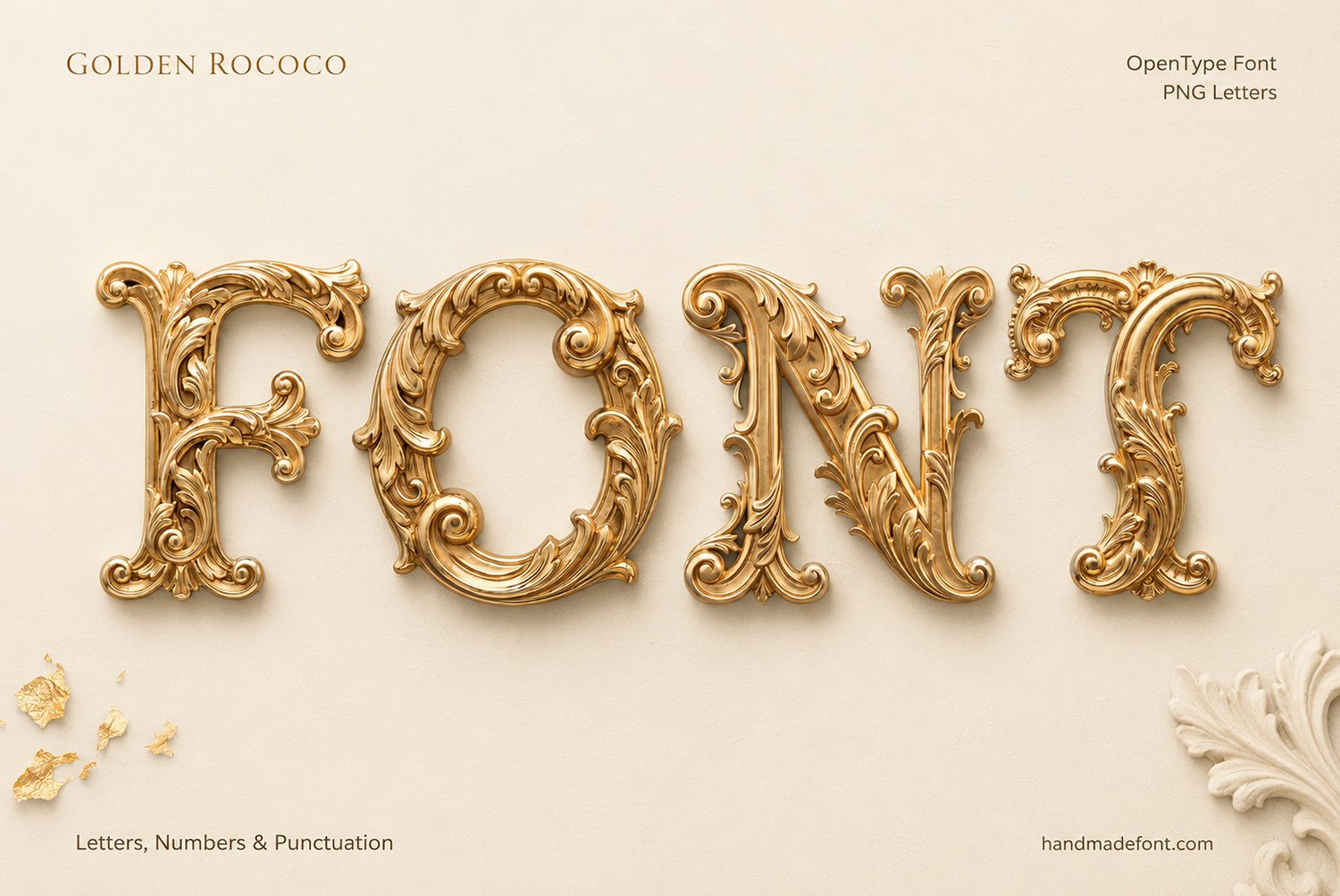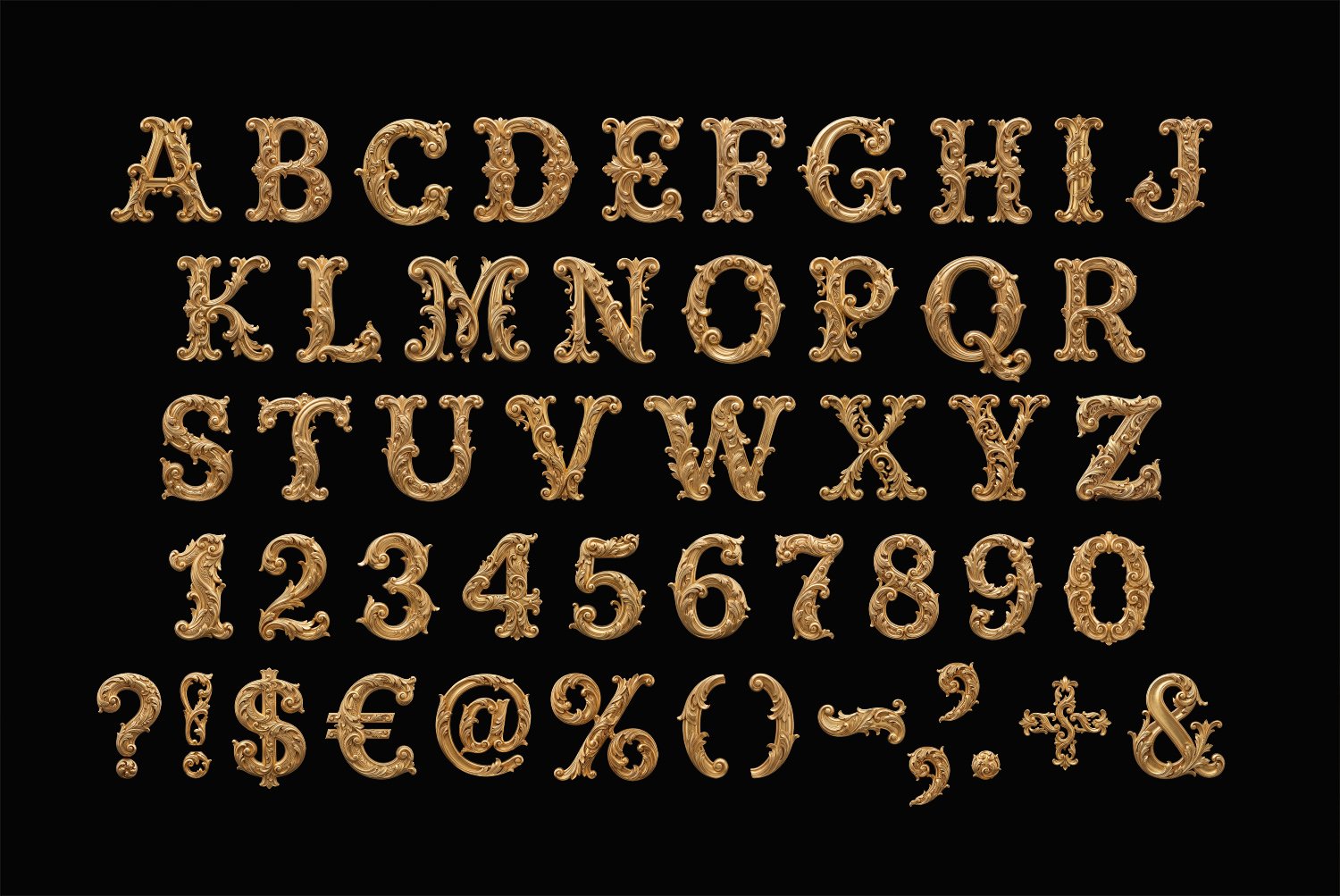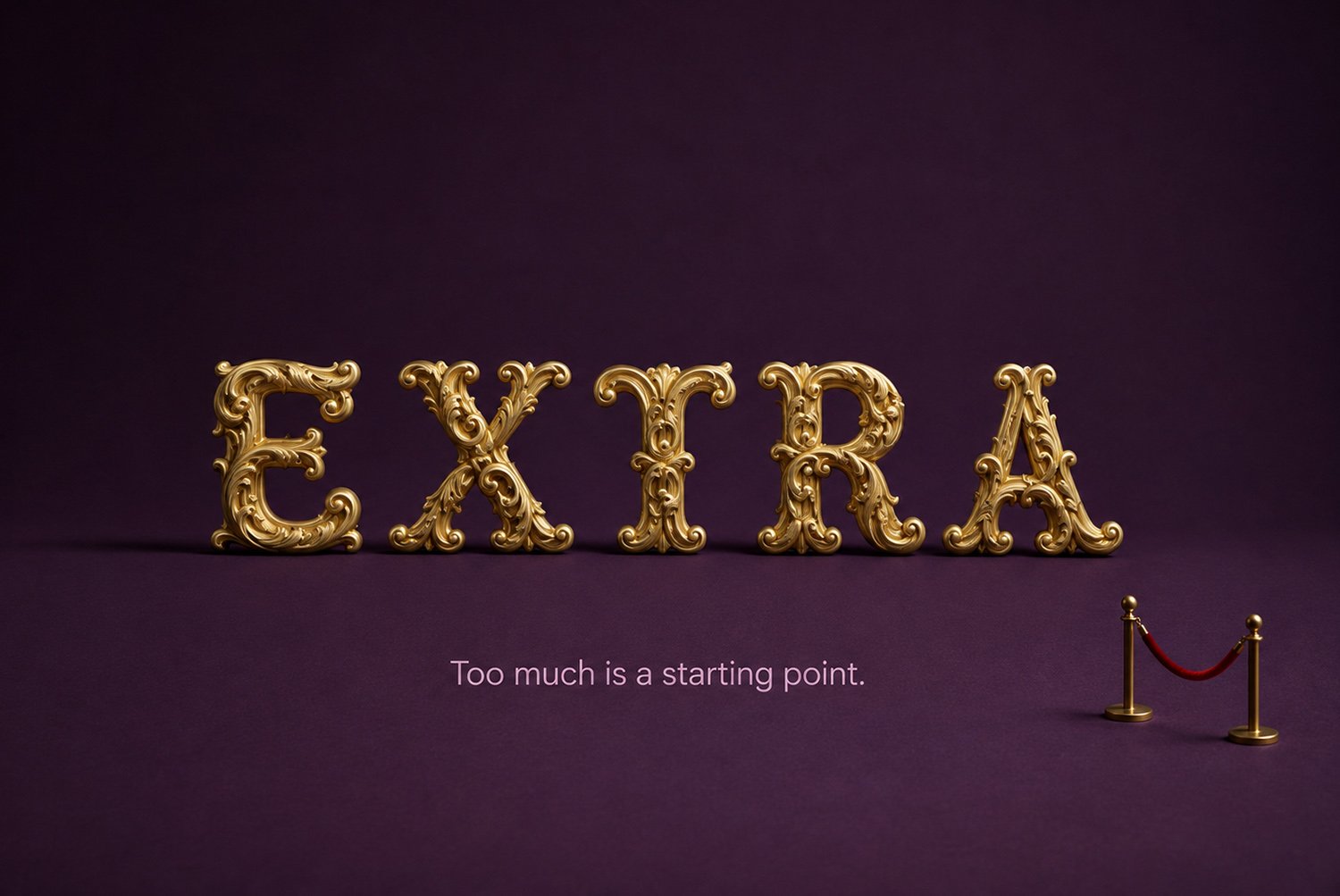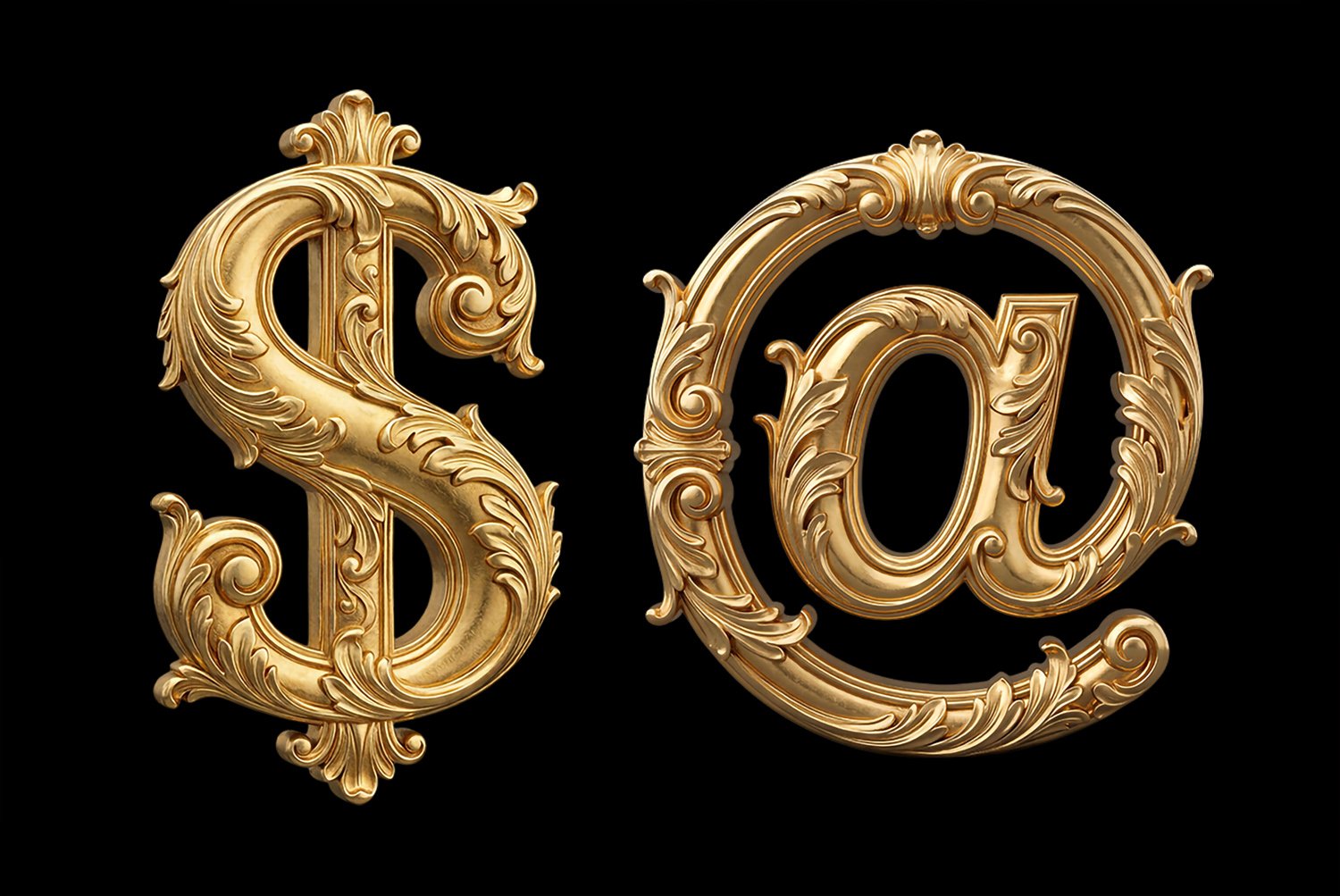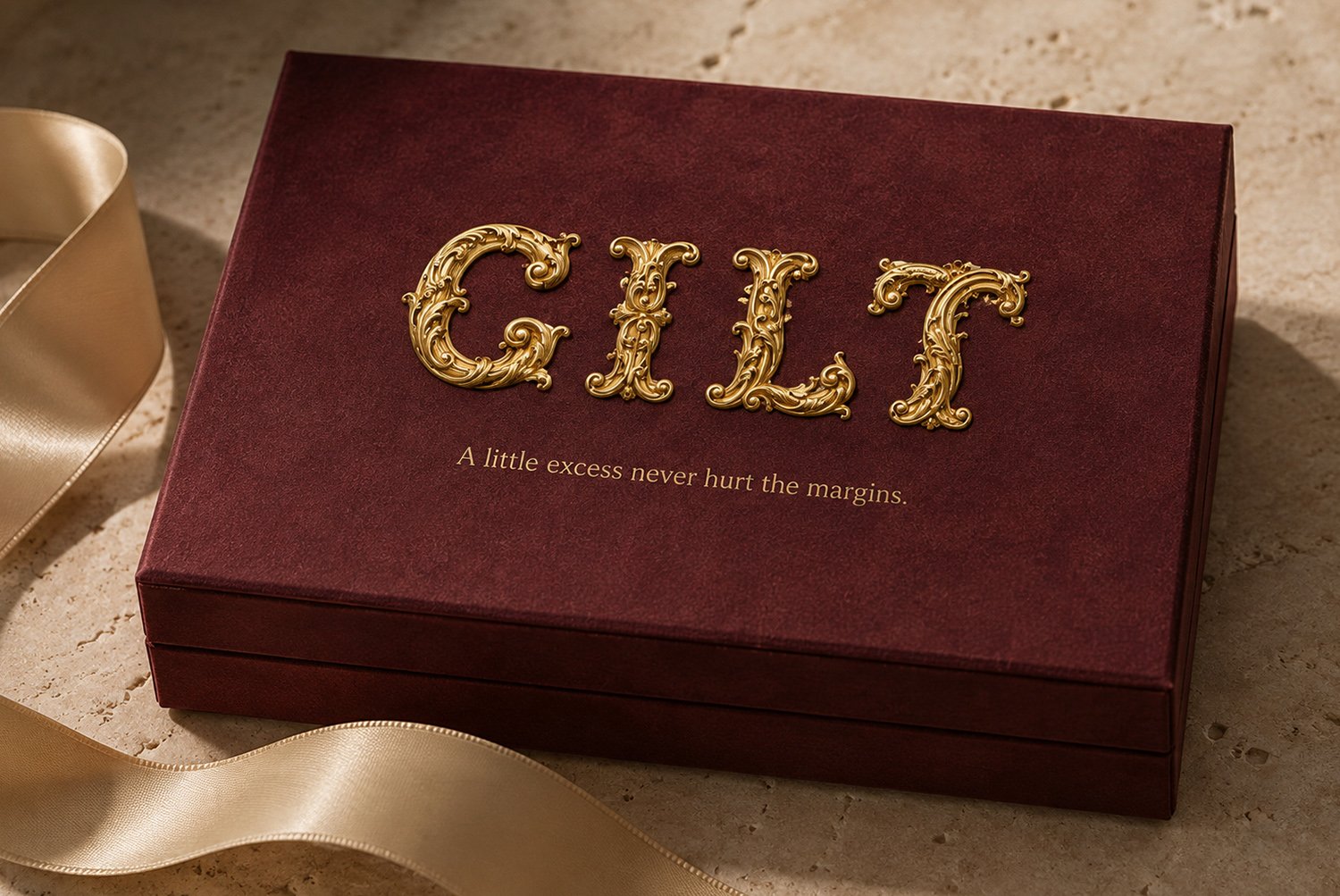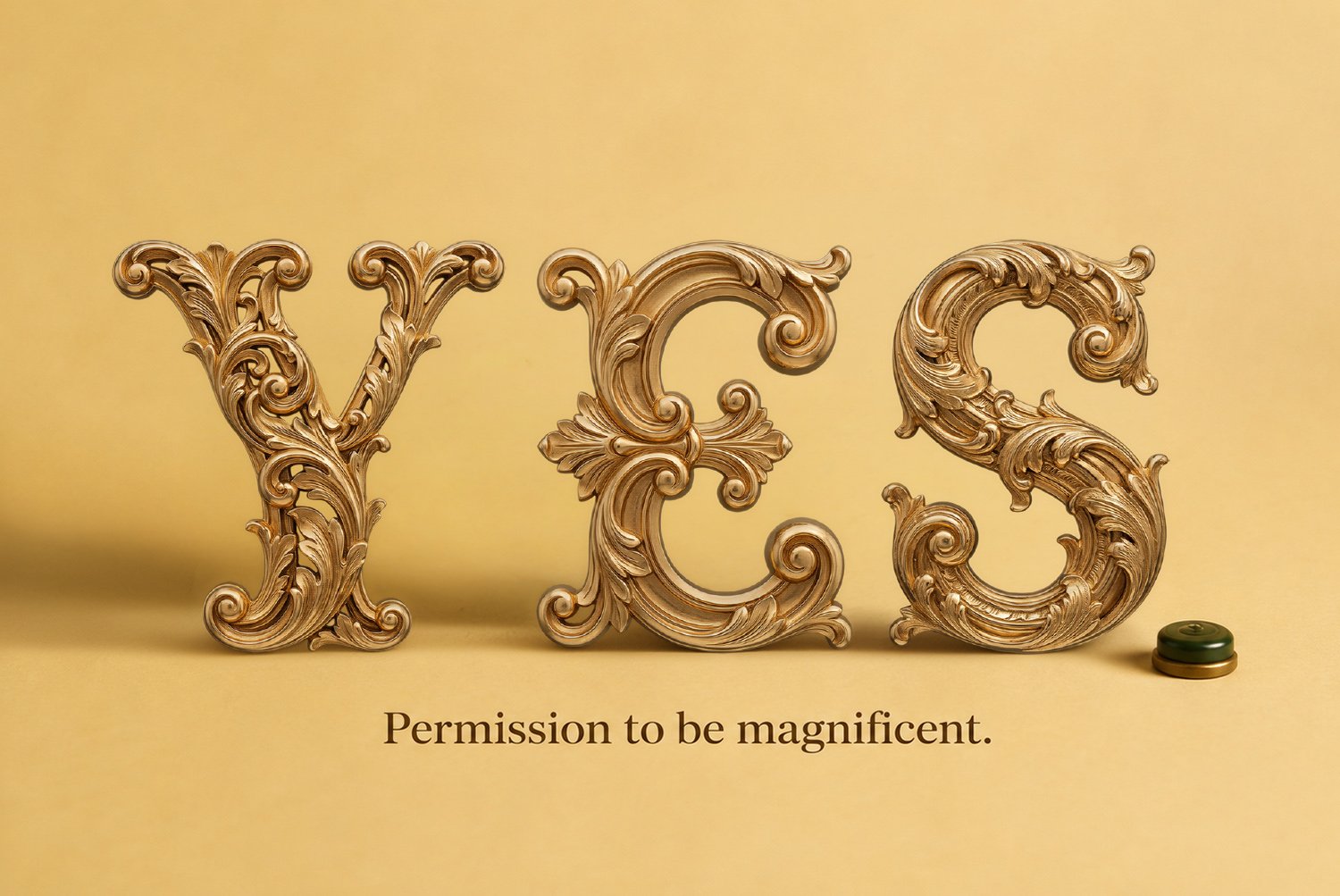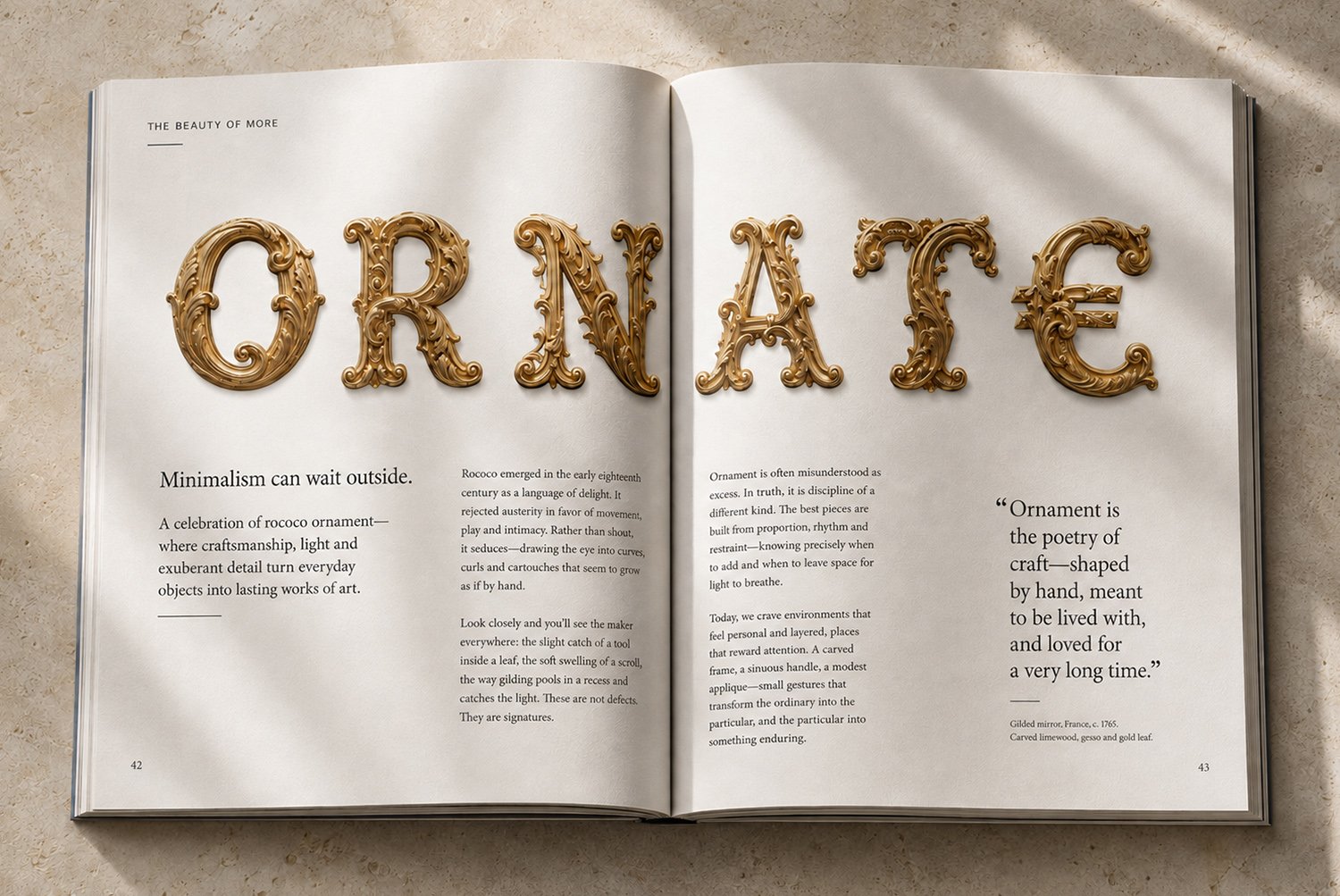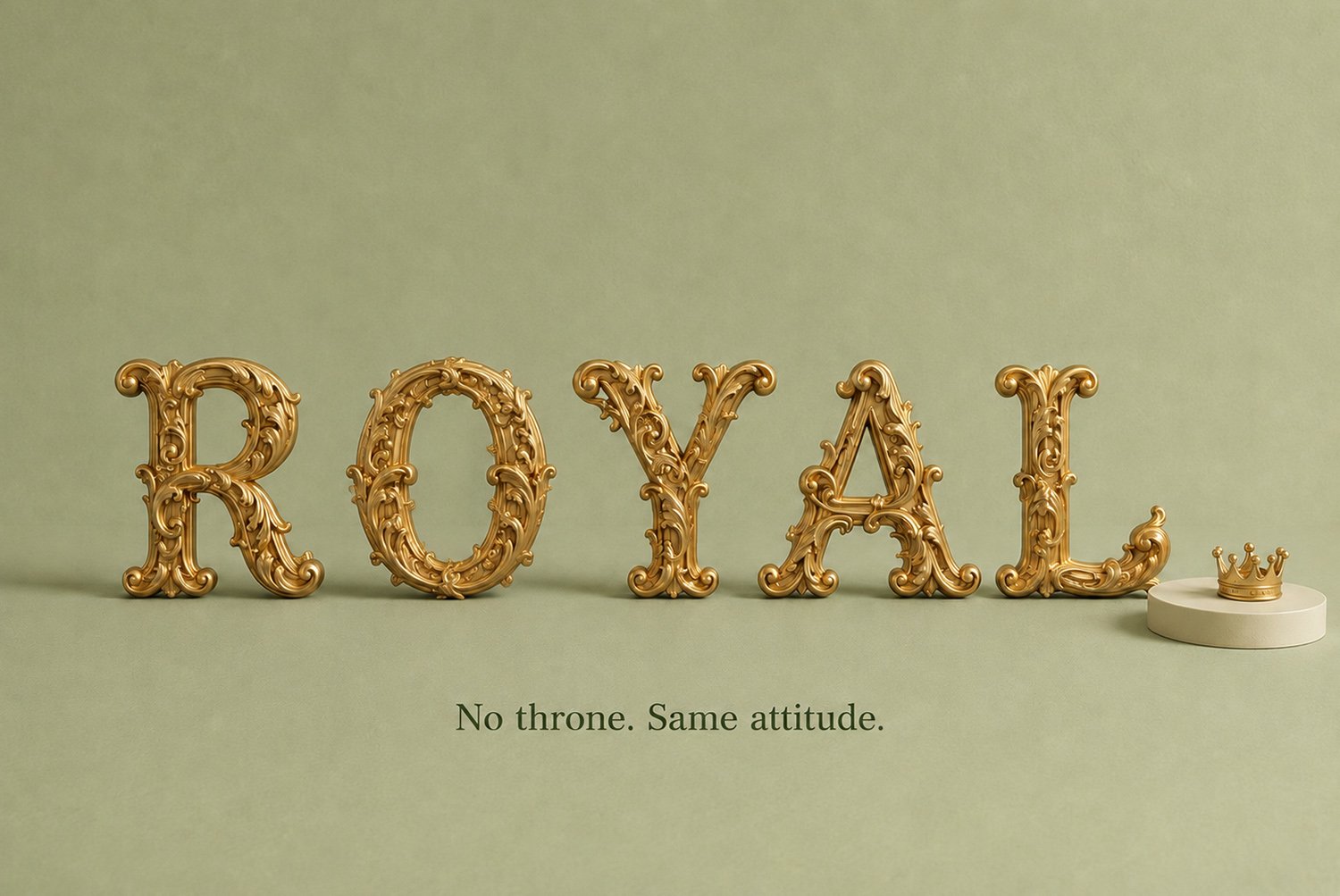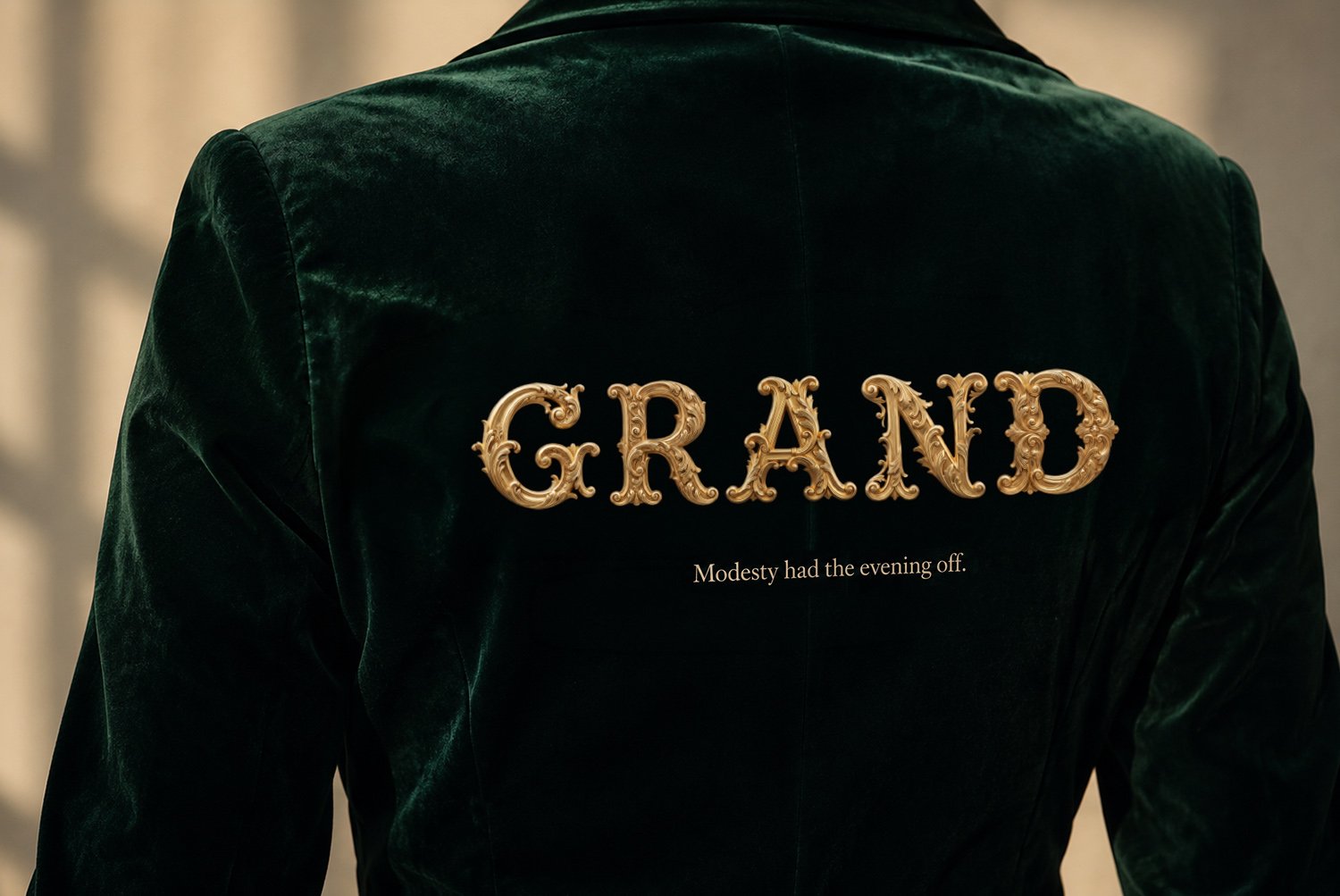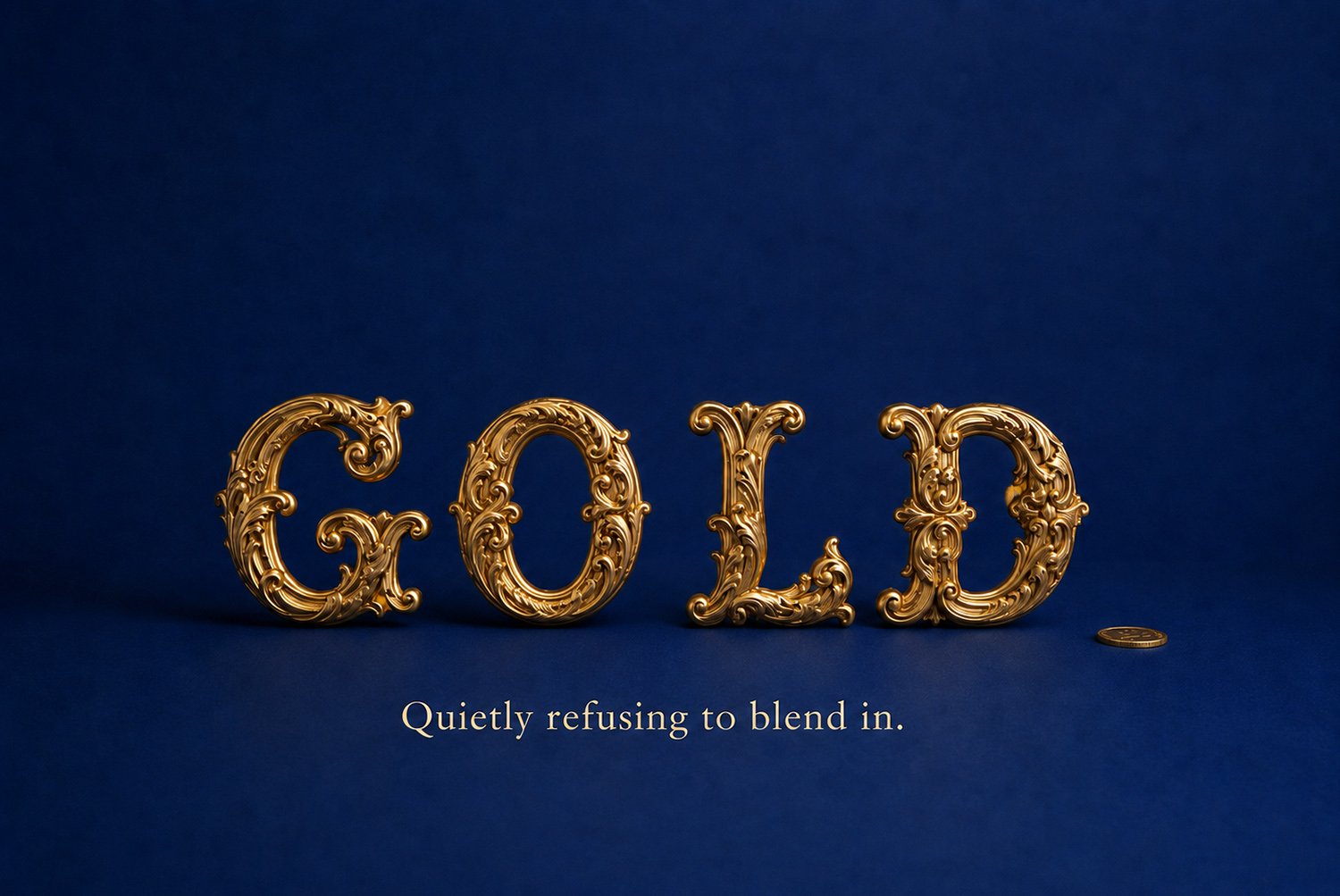
Golden Rococo Font
Golden Rococo Font turns every word into a miniature gilded masterpiece. Inspired by lavish Rococo ornament, its letters combine graceful scrolls, acanthus leaves, carved flourishes, and rich golden dimension. This decorative typeface brings a sense of ceremony and grandeur to luxury branding, wedding invitations, perfume packaging, event posters, editorial designs, and theatrical titles. Golden Rococo Font comes as an easy-to-use OTF font and includes every character separately as a high-quality PNG on a transparent background. Arrange the letters freely to create striking logos, monograms, social graphics, and bespoke decorative compositions.